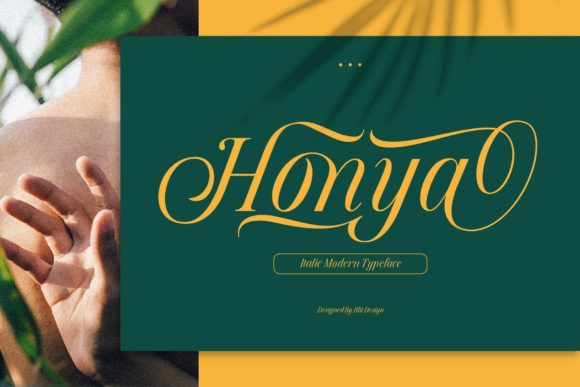
Journey into the world of Honya Font, a captivating script font crafted by the ingenious Alit Design. Honya is not merely a font; it's an exquisite stroke of art that will infuse your designs with a touch of elegance and sophistication. Gaze upon its graceful curves and delicate swashes, meticulously designed to evoke a sense of timeless beauty.
Honya's PUA encoding unlocks a treasure trove of glyphs and swashes, effortlessly accessible to enrich your creative vision. With Honya at your disposal, the possibilities are boundless. Unleash your imagination and embark on a design odyssey, transforming ordinary projects into extraordinary masterpieces.
Envision your designs adorned with Honya's enchanting charm, captivating the hearts of your audience. It's the perfect font for those seeking to make a lasting impression, whether it's a captivating logo, an alluring invitation, or a website that exudes an air of sophistication. Honya's versatility knows no bounds; it seamlessly adapts to a myriad of design endeavors, effortlessly elevating them to new heights of allure and distinction.
With Honya as your creative ally, you hold the key to unlock a world of design possibilities. Each letter dances across the page with poise and grace, inviting your audience on a visual journey they won't soon forget. Experience the transformative power of Honya, and watch as your designs blossom into works of art that captivate and inspire.